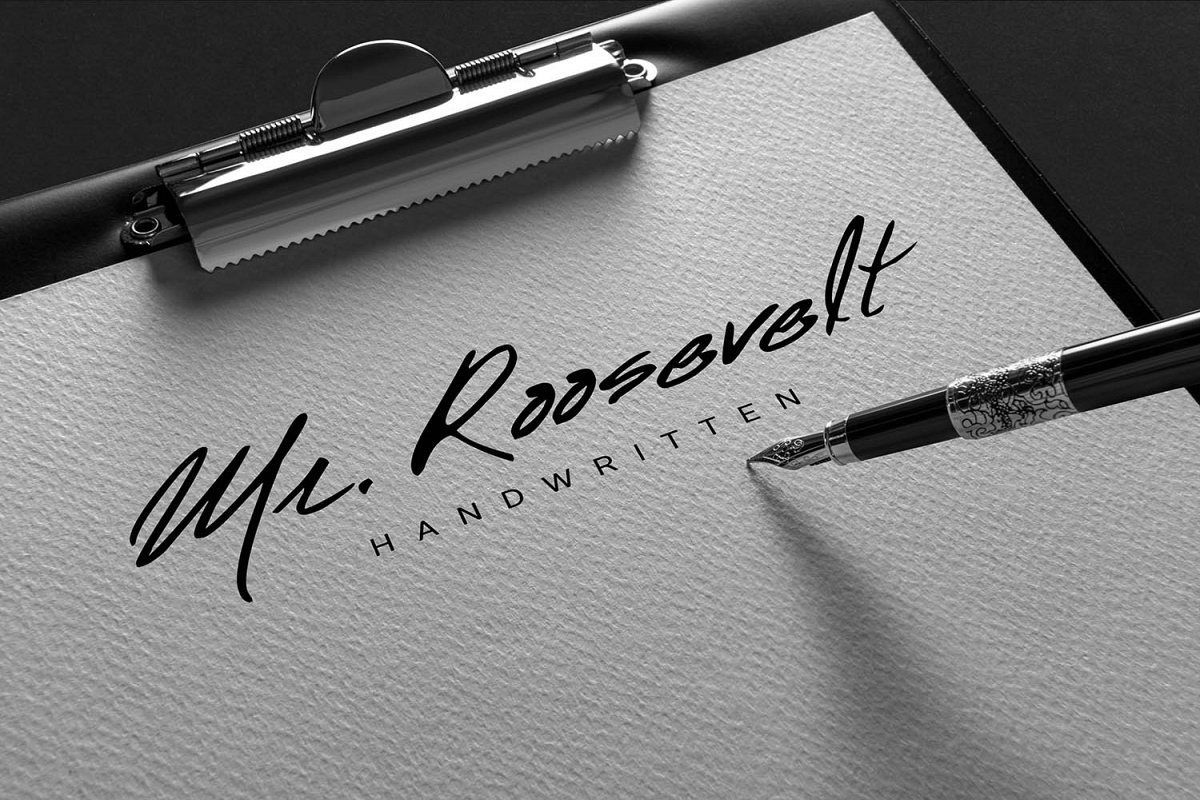
Mr. Roosevelt Handwritten
Mr. Roosevelt Handwritten - is a handwritten font with great style and perfect for photography, signatures, branding etc ...